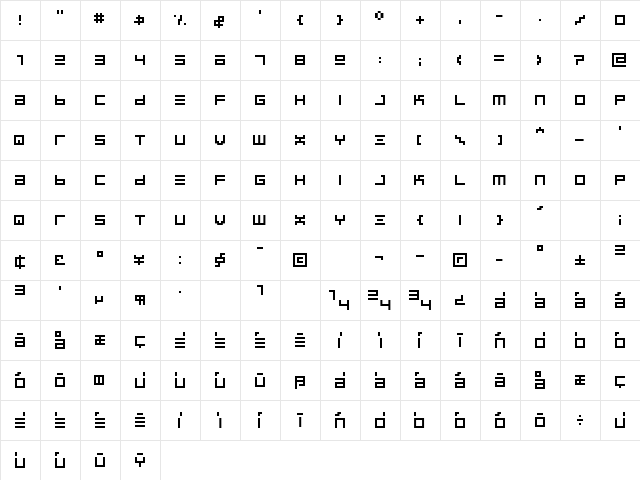
BIN Regular Regular
Design Context for BIN Regular Typeface
BIN Regular is a composed and adaptable typeface that performs quietly and consistently across a wide range of design contexts.